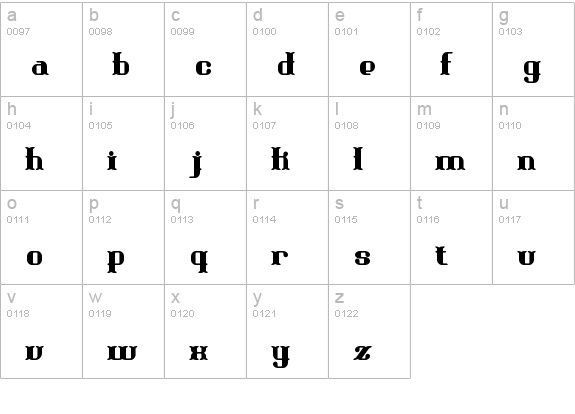
Blackoninaut Bold BRK Font Details
Blackoninaut Bold BRK is a strong, high-contrast variant in the Blackoninaut typeface family \xE2\x80\x94 well suited to headlines, attention-grabbing titles, and strong calls-to-action.
Blackoninaut Bold BRK font is a striking and bold typeface that demands attention with its strong, geometric design. The powerful and modern look of this font makes it perfect for a wide range of design projects, from logos and headlines to posters and branding materials. What sets Blackoninaut Bold BRK font apart is its unique combination of sharp edges and smooth curves, creating a dynamic and eye-catching visual impact. Whether you're looking to make a statement or add a touch of sophistication to your designs, this font is sure to impress. Best of all, Blackoninaut Bold BRK font is available for free download at FontsMarket.com. This means you can easily add this versatile and stylish typeface to your font library without any cost. Don't miss out on the opportunity to enhance your designs with the bold and modern aesthetic of Blackoninaut Bold BRK font - download it today and take your projects to the next level.